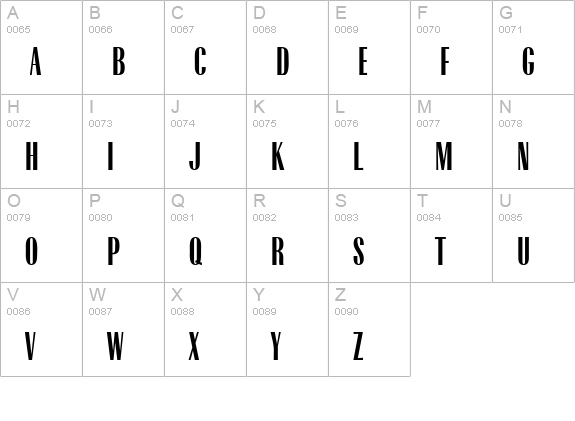
R650-Deco-Regular Font Details
R650-Deco-Regular is the standard, neutral variant in the R650 typeface family \xE2\x80\x94 well suited to general body text, paragraphs, and standard typographic work.
R650-Deco-Regular is a stylish and modern font that exudes elegance and sophistication. Its sleek lines and geometric shapes make it perfect for a wide range of design projects, from branding to advertising to web design. This versatile font is sure to make a bold statement and leave a lasting impression. The best part? R650-Deco-Regular is available for free download at FontsMarket.com! This means you can easily access this high-quality font and incorporate it into your projects without any hassle. Don't miss out on the opportunity to add this beautiful typeface to your collection. Download R650-Deco-Regular today and take your designs to the next level.